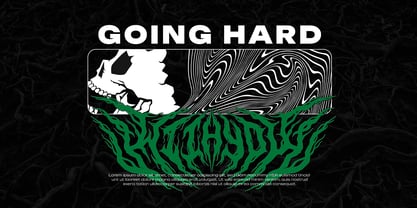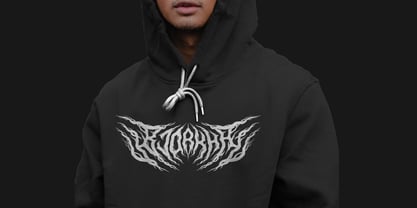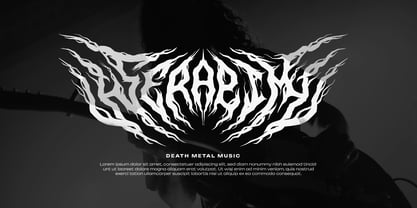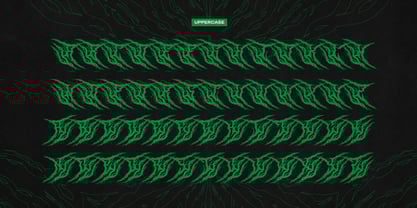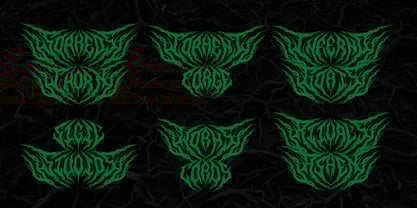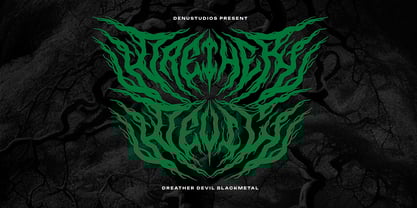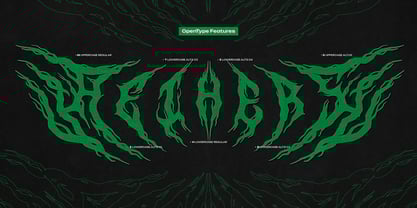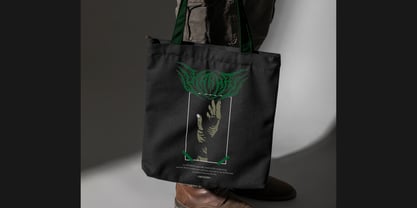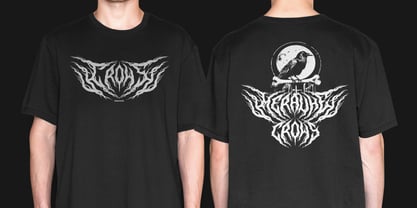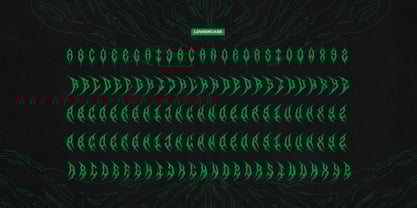
Drether Devil
by Denustudio
The Drether Devil Font Family was designed by Dede Nugraha and published by Denustudio. Drether Devil contains 1 styles. More about this family
Drether Devil | Black Metal Font, from Denustudios, suitable for any projects such as: logos, branding projects, homeware designs, product packaging, mugs, quotes, posters, shopping bags, t-shirts, book covers, name card, invitation cards, greeting cards, label, photography, watermark, special events, and all your other lovely projects that need Black Metal Font a taste.